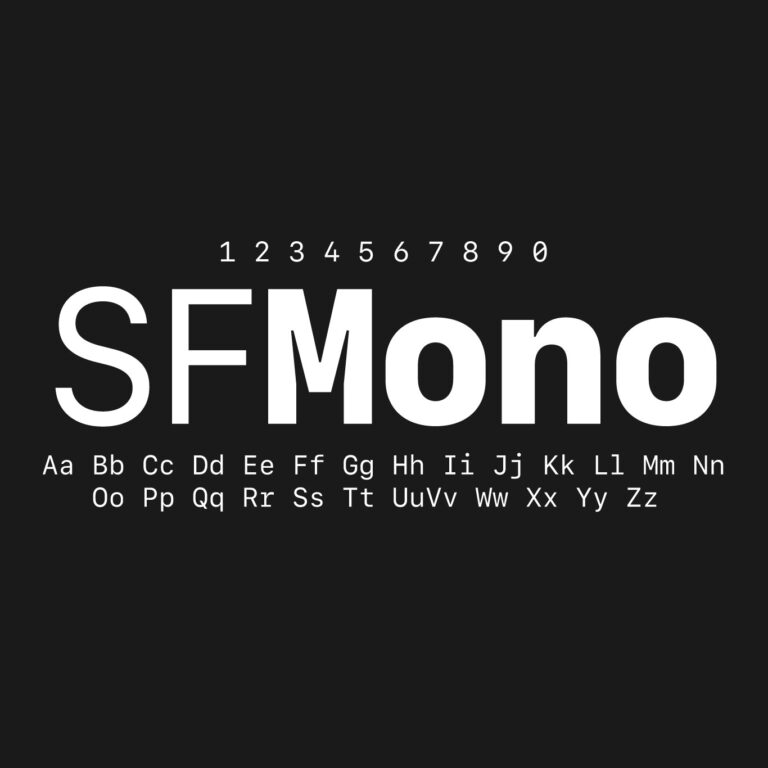
Font Type: Monospaced Sans Serif
Included Weights: Light, Regular, Medium, Semibold, Bold and Heavy
Script Support: Latin, Greek and Cyrillic
Developer: Apple
What Is SF Mono?
SF Mono is the fixed-width member of Apple’s San Francisco type family. Every character occupies the same horizontal space, allowing letters, numbers and punctuation to align precisely across multiple rows. This structure is particularly useful for source code, command-line interfaces, technical tables and any layout where consistent character positioning matters.
Apple uses SF Mono in coding environments such as Xcode. Its proportions are compact enough to fit long lines of code without becoming cramped, while clear distinctions between similar characters help improve readability in dense technical text.
SF Mono Design Characteristics
SF Mono combines the functional rhythm of a traditional monospaced font with the cleaner and more contemporary appearance of the San Francisco family. The characters have open counters, controlled curves and clearly differentiated punctuation, helping code remain readable at both small interface sizes and larger presentation scales.
Letters and numbers are designed to remain distinguishable when viewed quickly. Characters such as the lowercase “l,” capital “I,” number “1,” zero and uppercase “O” use different constructions, reducing ambiguity in code, filenames, passwords and technical data.
The italic styles are not simply mechanically slanted copies of the upright fonts. They provide a coordinated secondary voice for comments, annotations, emphasized values and syntax highlighting while preserving the fixed-width structure of the family.
Using the Different Weights
Light works best for large code samples, minimal terminal graphics and presentation titles. Regular and Medium provide the clearest balance for everyday code, tables and technical text. Semibold and Bold are useful for highlighted commands, navigation, labels and section headings, while Heavy creates strong display typography for short technical titles and developer-focused graphics.
SF Mono vs SF Pro
SF Pro uses proportional character widths, meaning narrow letters such as “i” take up less space than wider letters such as “M.” This produces a more natural reading rhythm for interface labels, paragraphs and general typography.
SF Mono assigns equal width to every character. The result is less suitable for conventional paragraphs but much better for code, terminal output, aligned values and technical layouts. The two families share a related visual language, making them easy to combine within the same Apple-platform interface concept.
Best Uses for SF Mono
SF Mono is well suited to Xcode-style code previews, terminal mockups, developer portfolios, API documentation, command examples, data tables, technical presentations and interface prototypes. It can also be used for short editorial details such as timestamps, version numbers, file paths and metadata where a fixed-width appearance supports the content.